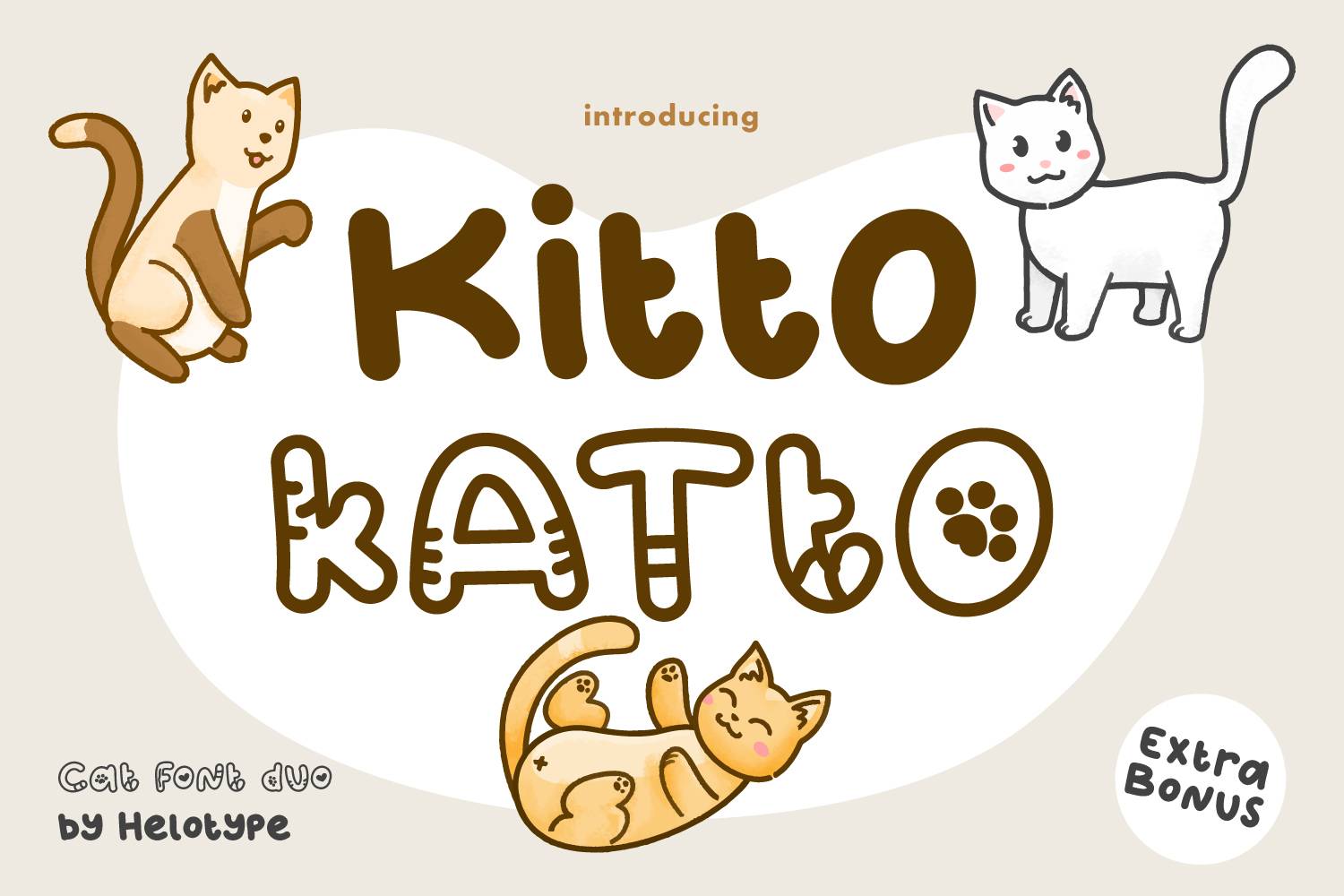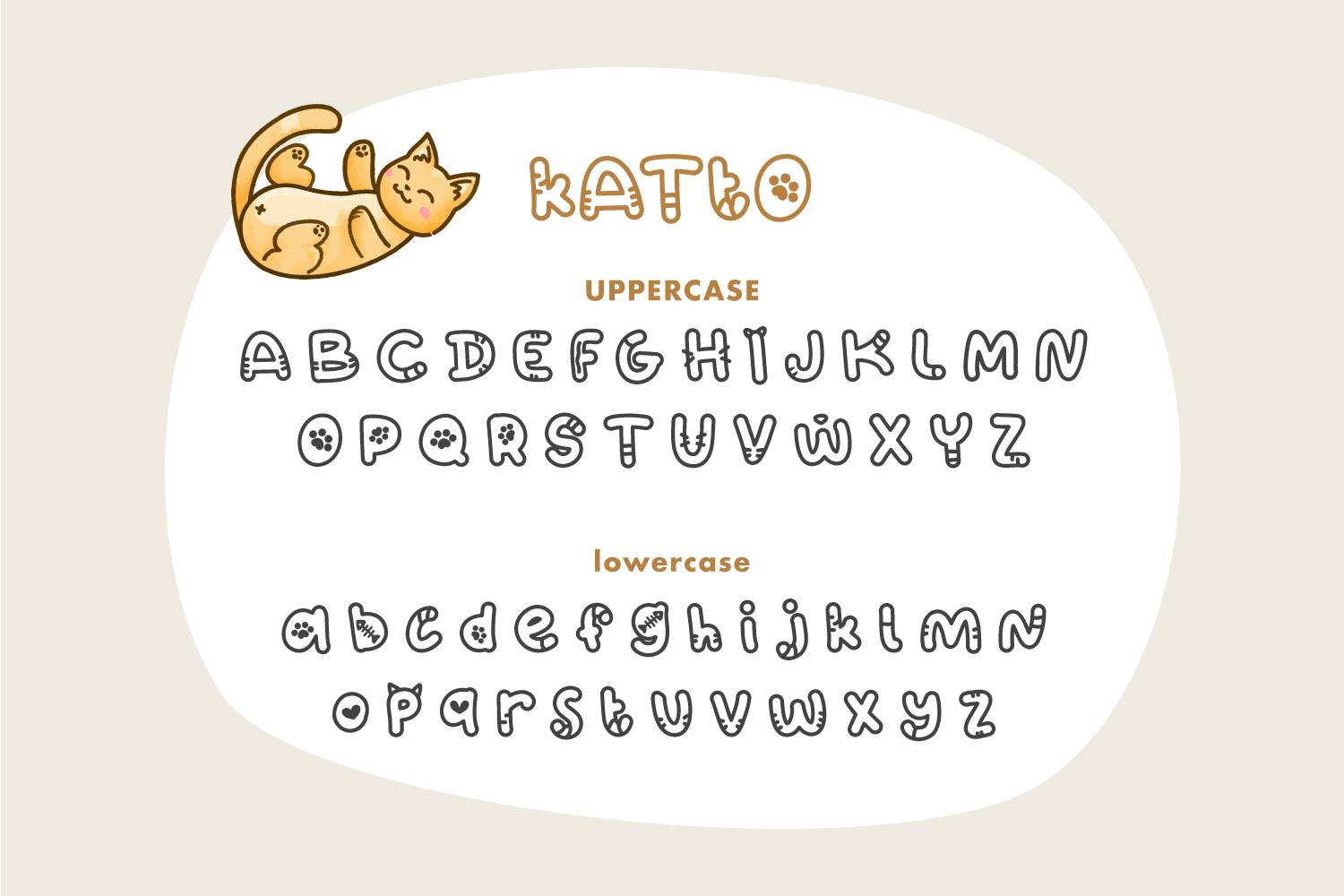
Katto is a playful and whimsical sans serif font with a hand-drawn feel, featuring thick strokes and charming decorative elements like hearts, paw prints, and stitches inside some characters. Its rounded shapes and lively details give it a friendly, fun personality, making it ideal for children's projects, casual branding, and creative designs that want to convey warmth and cheerfulness. This font works best in headlines, logos, and invitations where a quirky and approachable style is desired.
Katto Font
About Katto Font